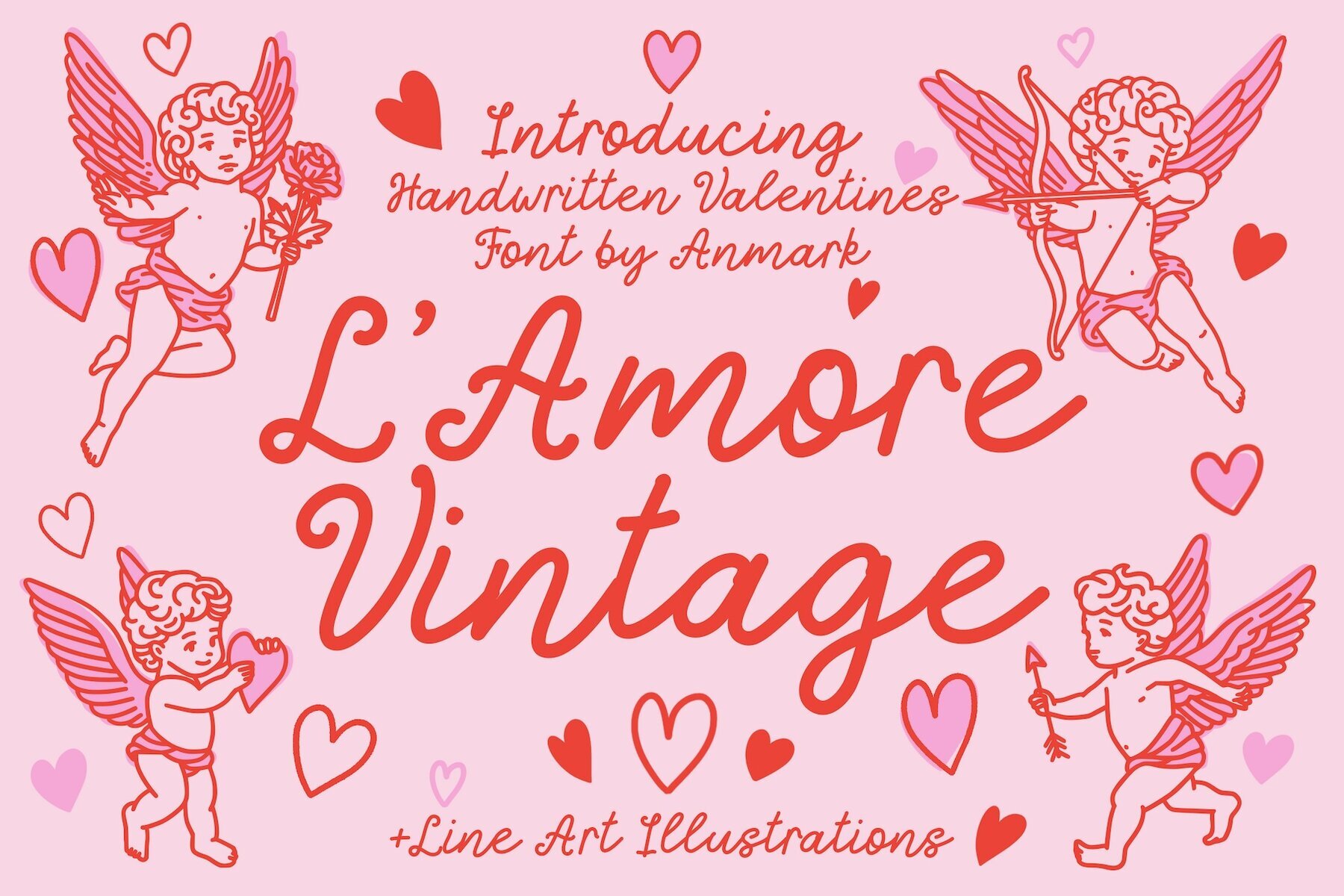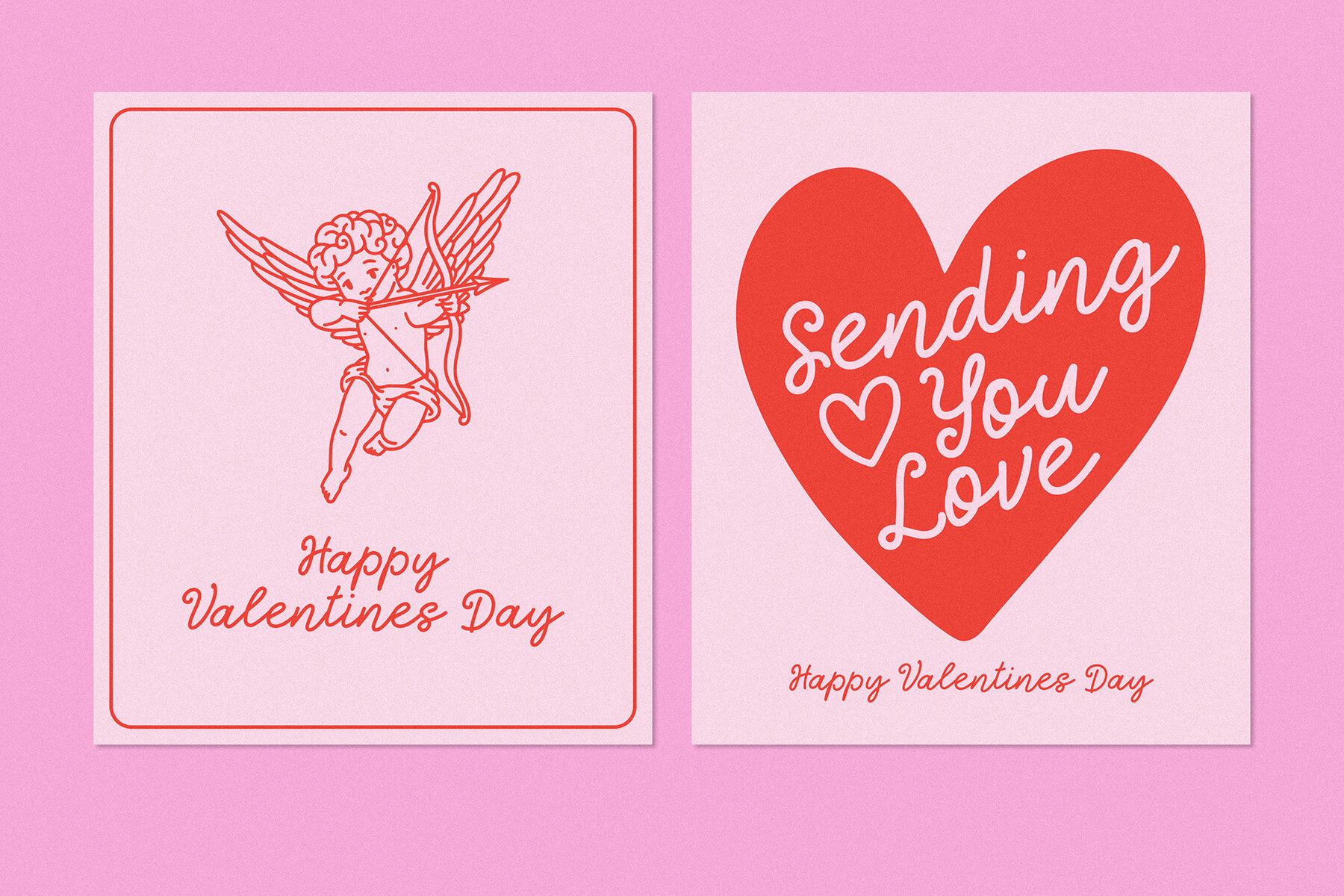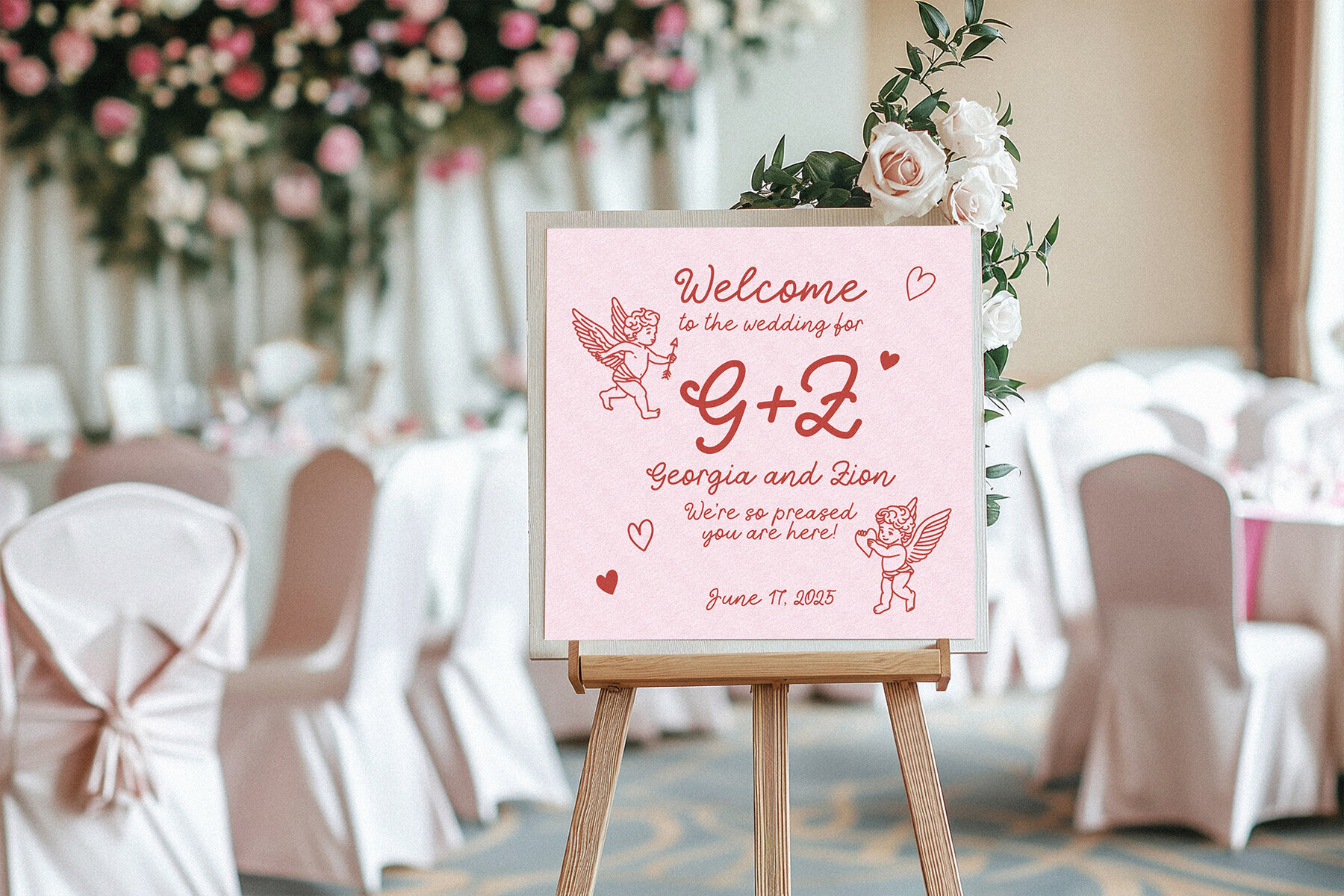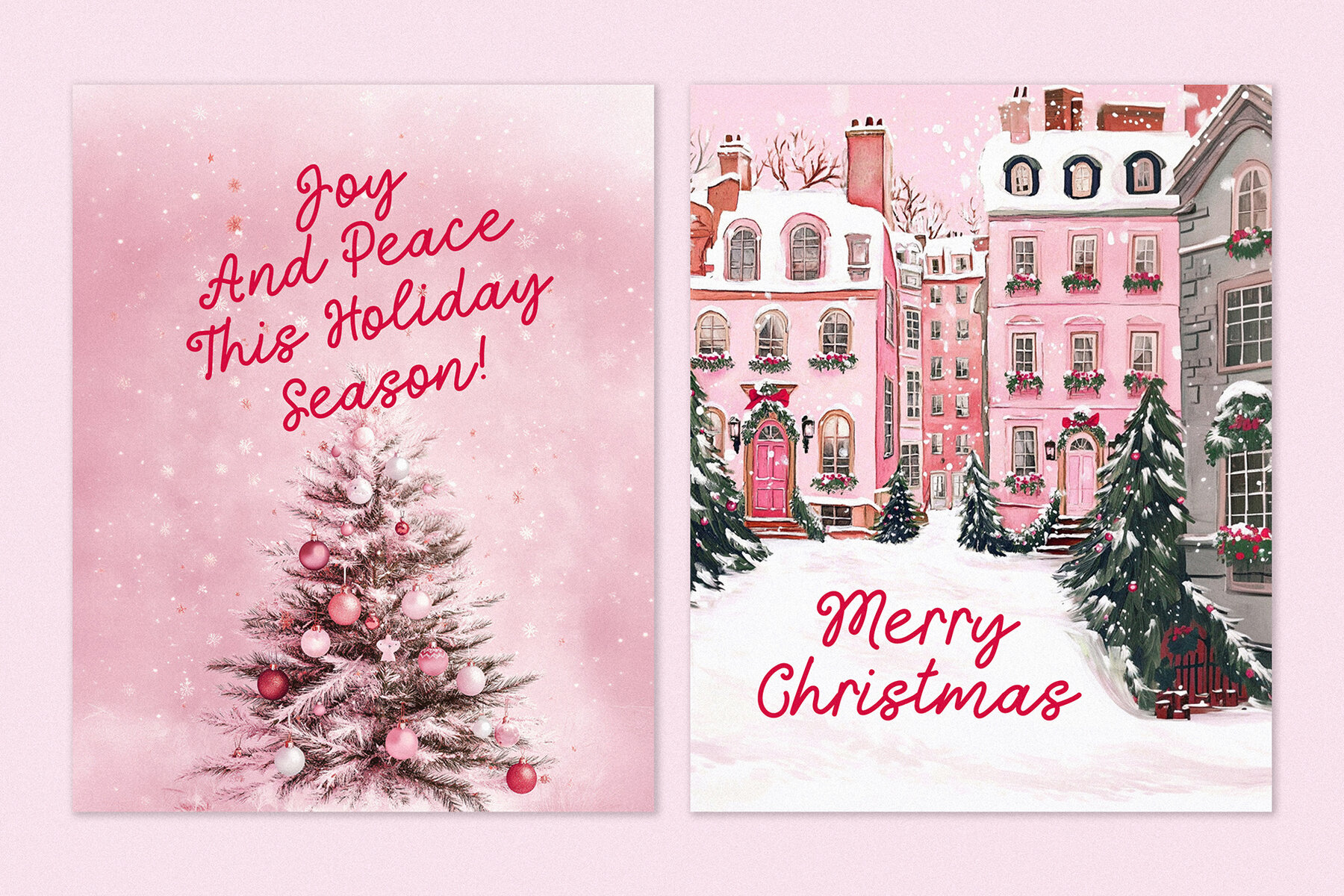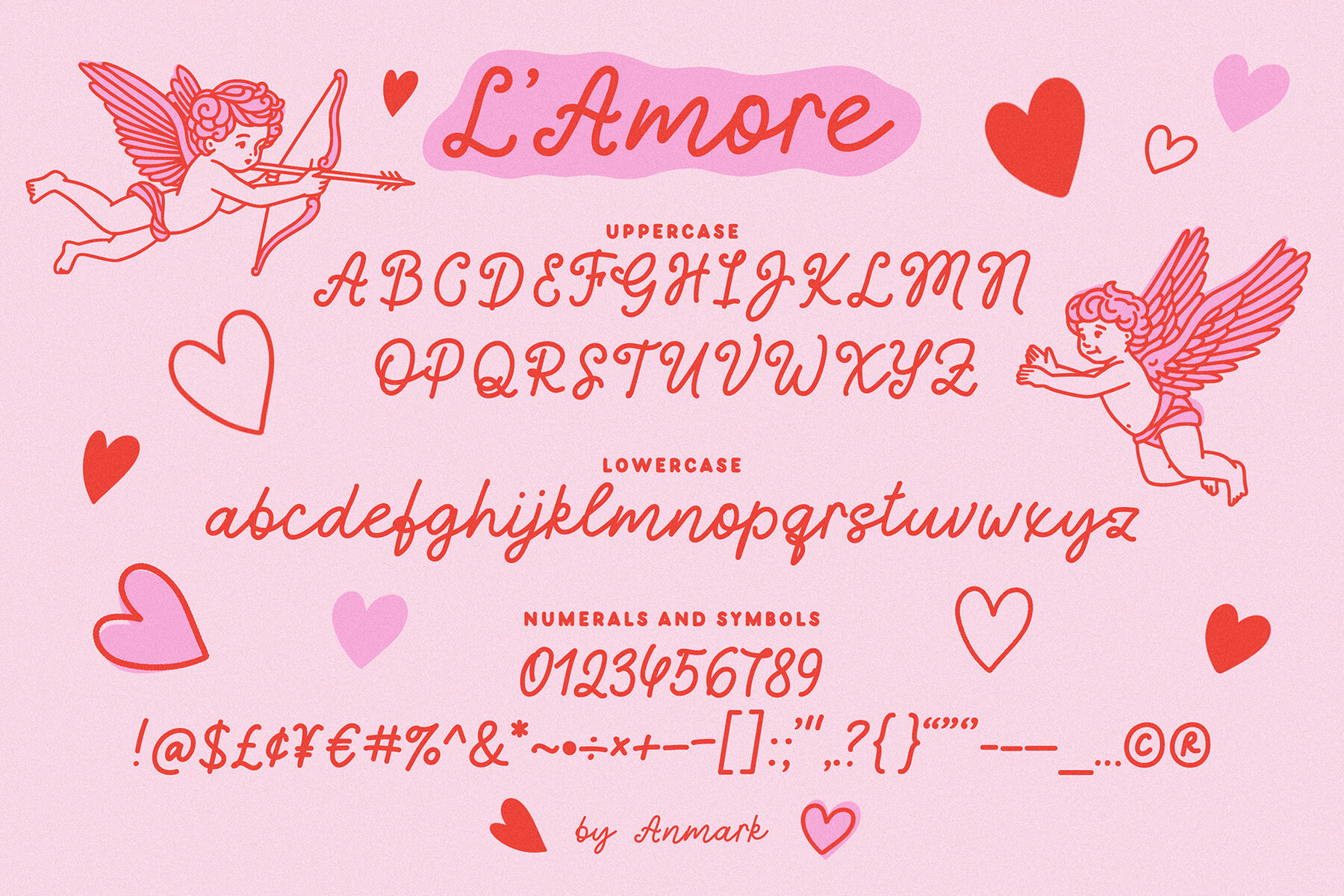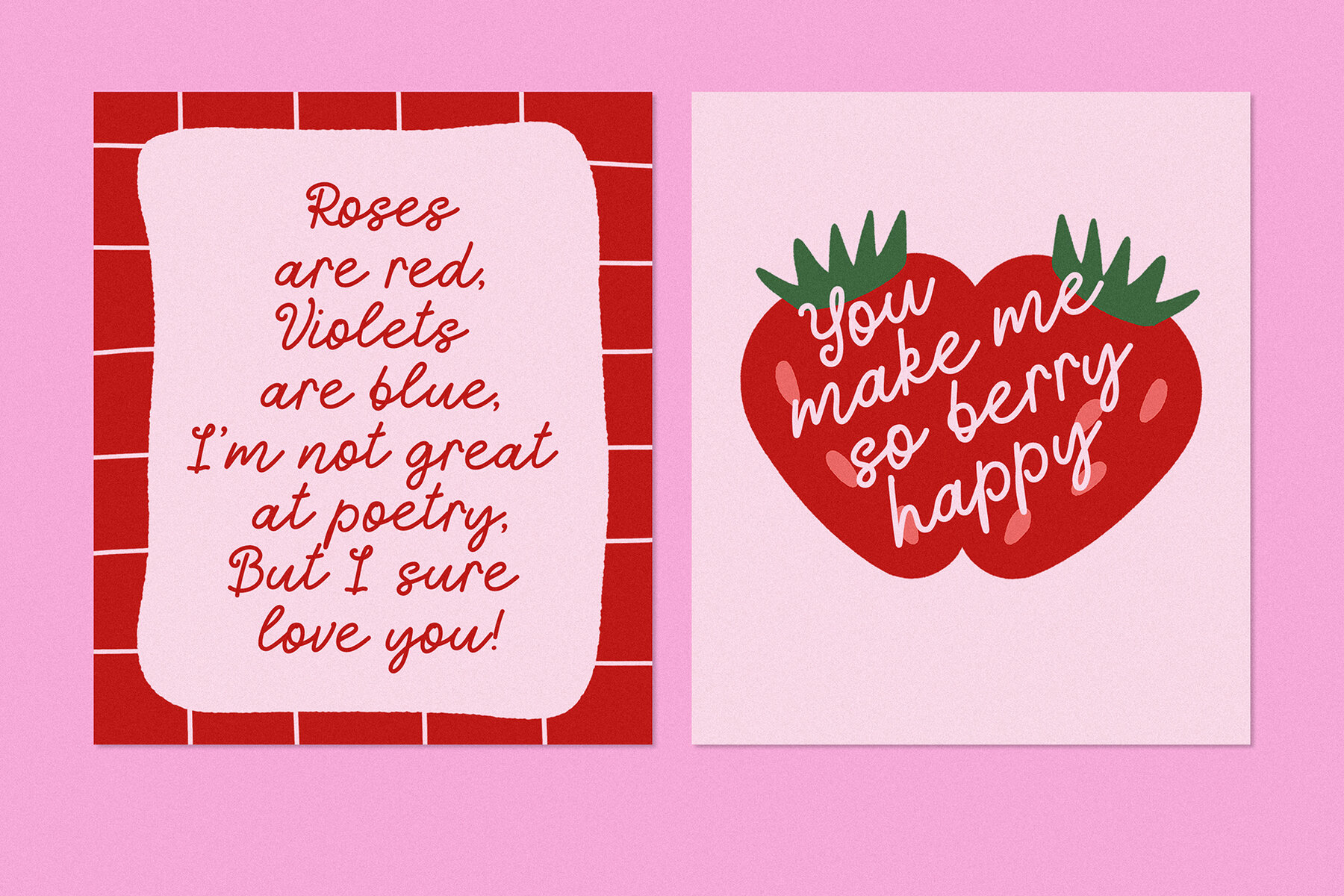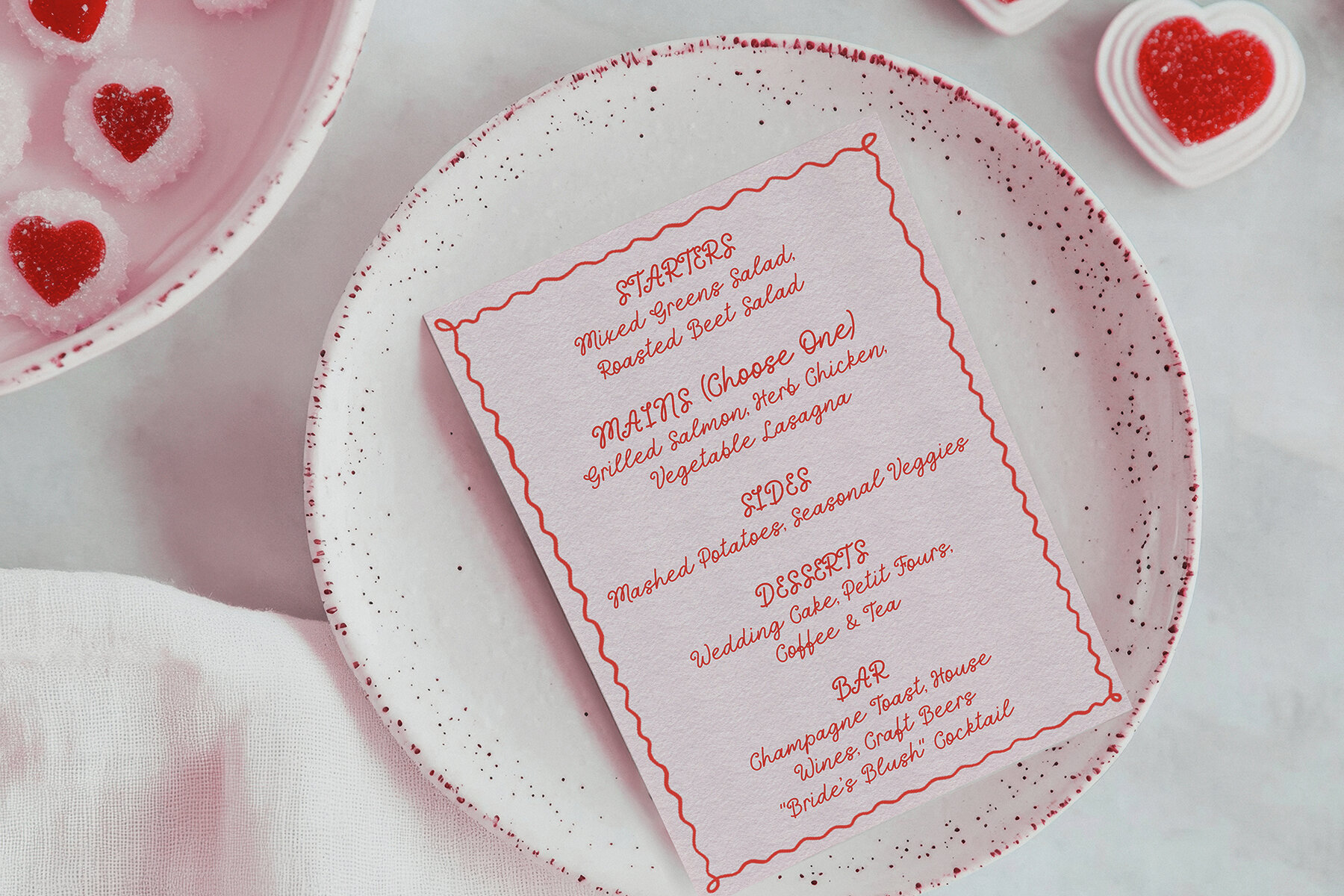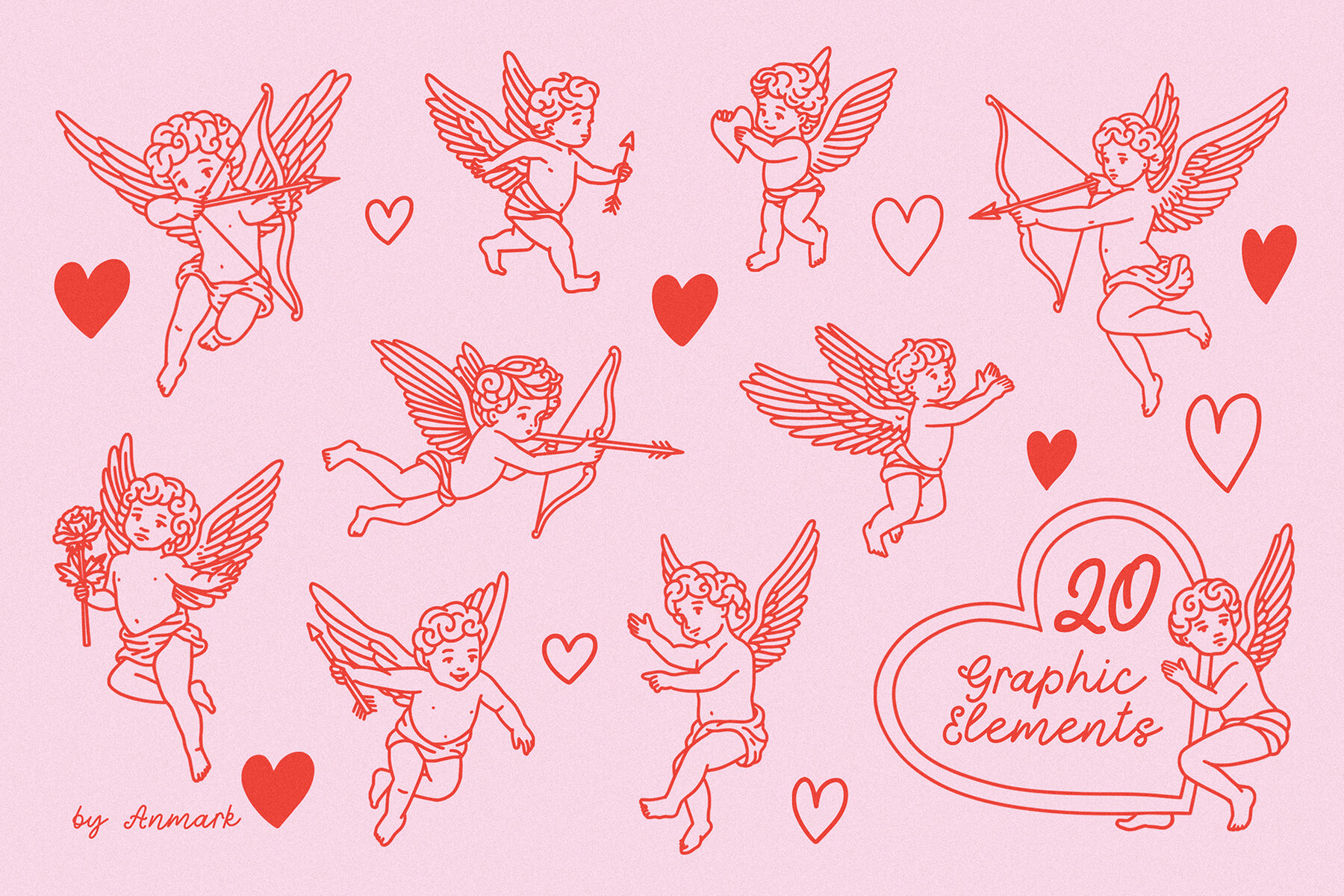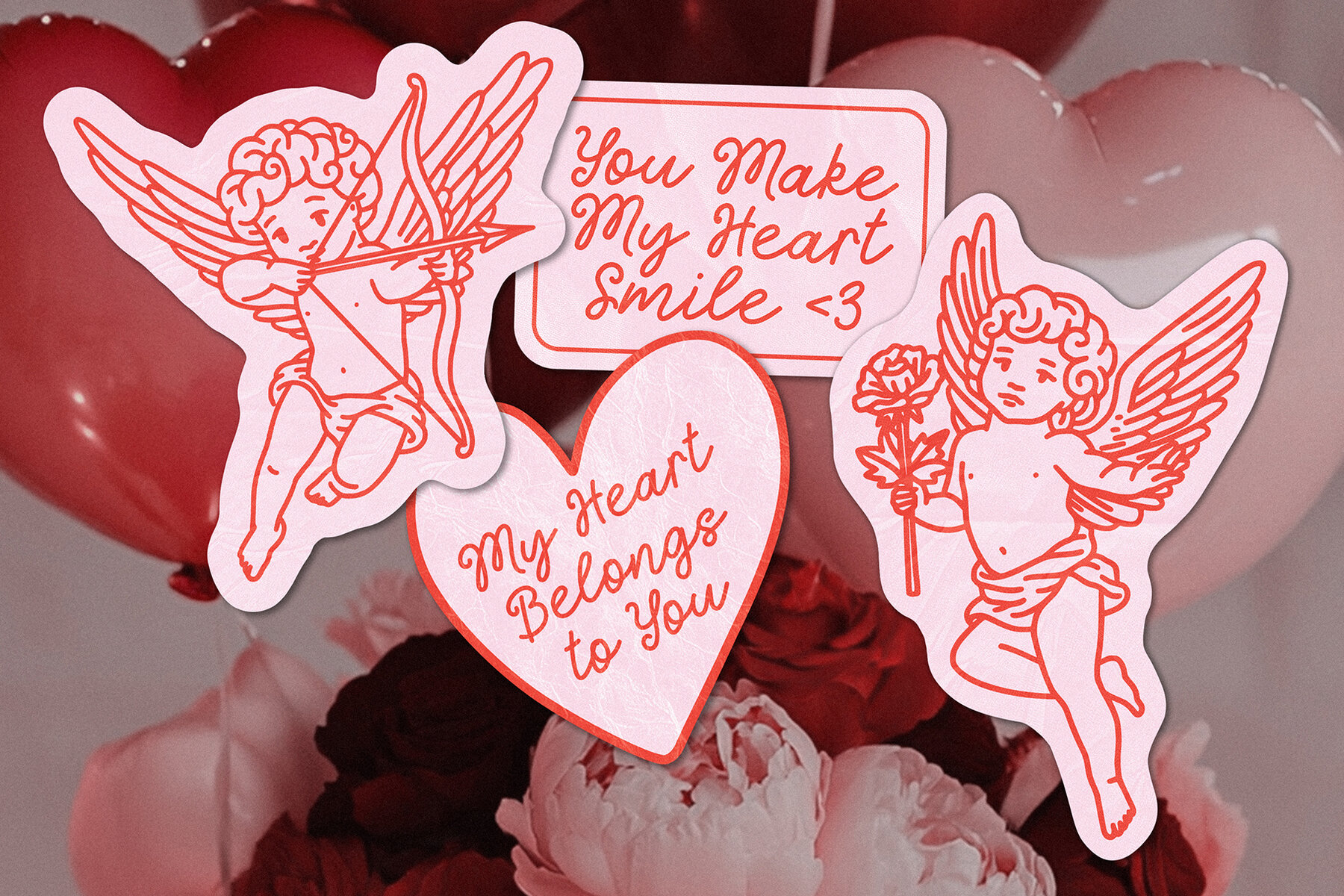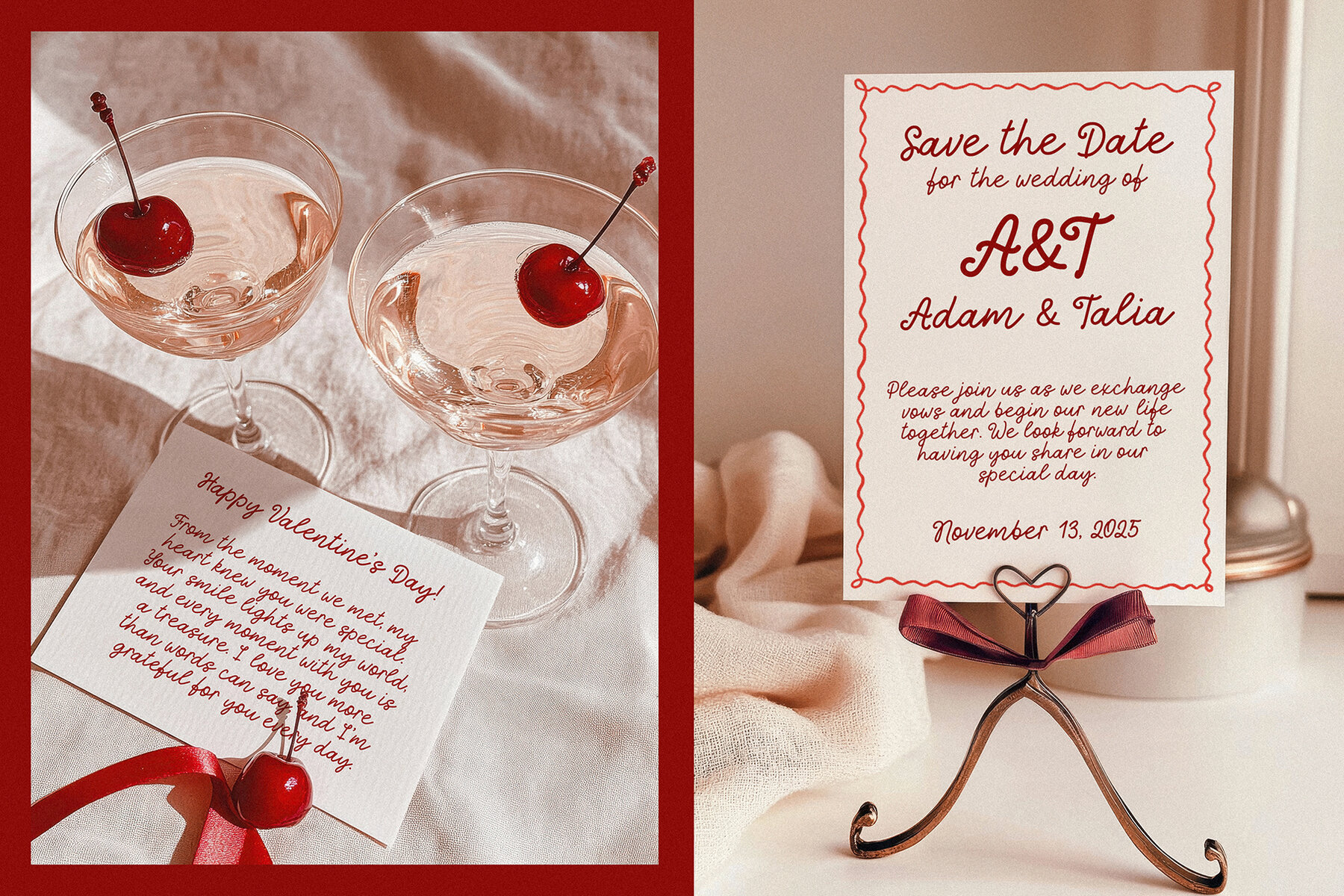
LAmore Vintage Font
LAmore Vintage is a captivating script font that seamlessly blends the allure of vintage charm with modern elegance. Its whimsical style makes it perfect for a variety of creative projects, including crafting intricate greeting cards and holiday invitations for occasions like Christmas, Valentine's Day, and Easter. LAmore Vintage enhances wedding monograms, invitations, menus, logos, and packaging, imbuing them with a warm and nostalgic flair. You will receive:
This font supports a wide array of languages, including Spanish, German, French, Italian, Portuguese, Swedish, Norwegian, Danish, Finnish, and more, offering versatility for international projects. Additionally, the purchase includes a bonus of 20 line art illustrations available in .ai, .eps, .svg, and .png formats. LAmore Vintage's elegant yet whimsical style ensures it's a versatile choice for infusing creativity into any design.